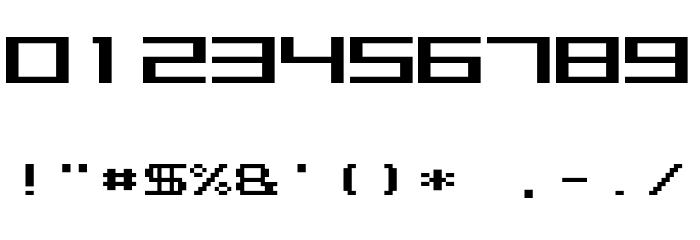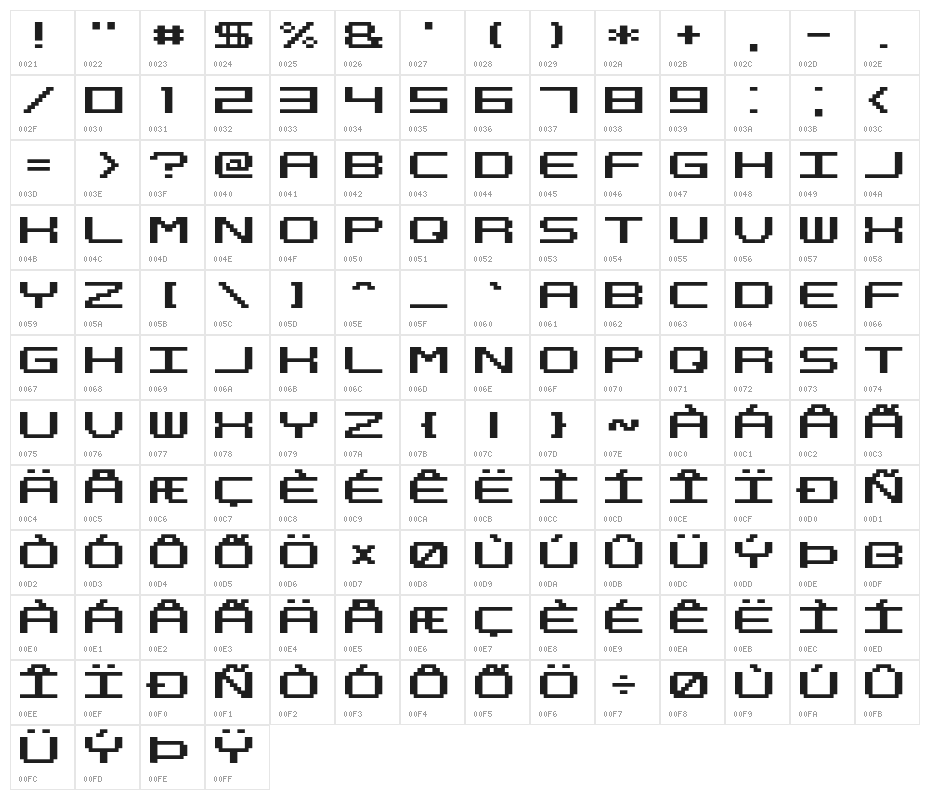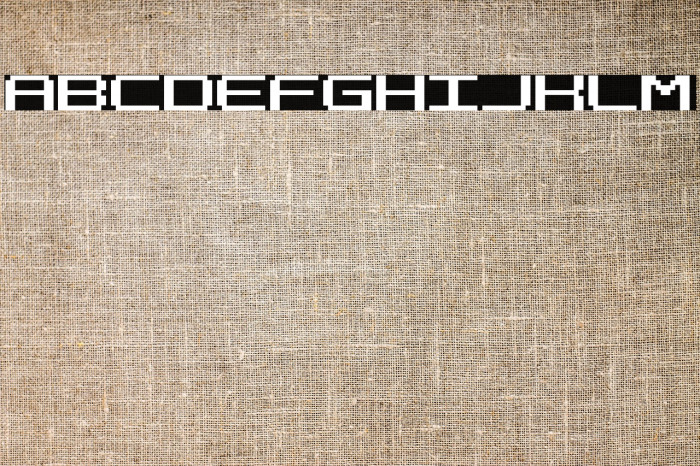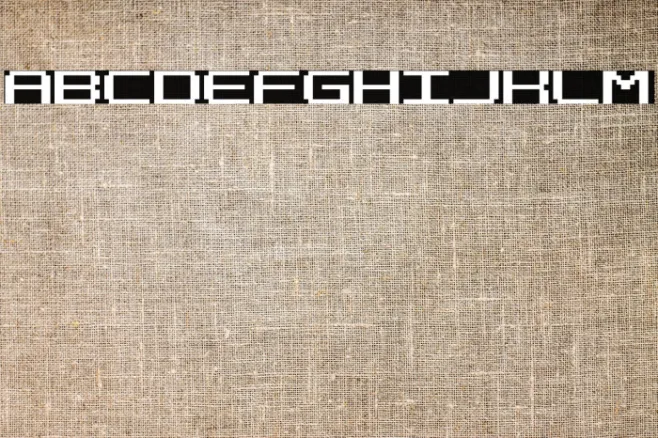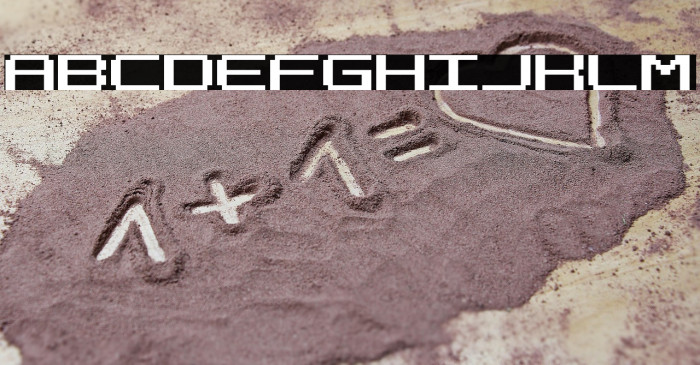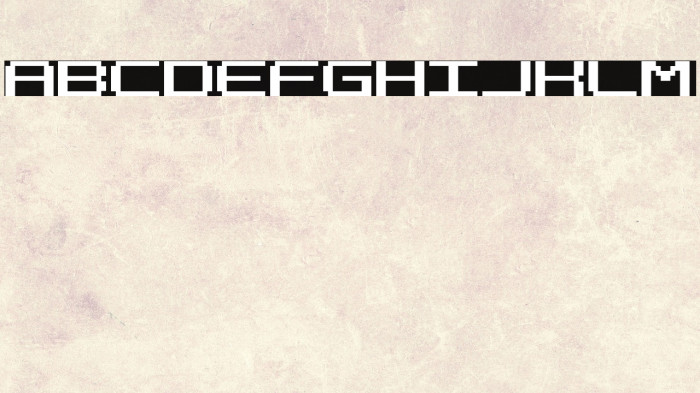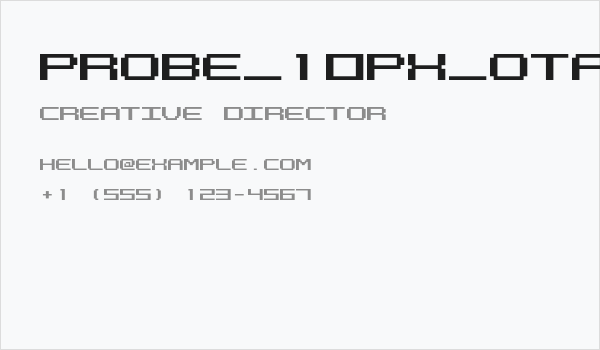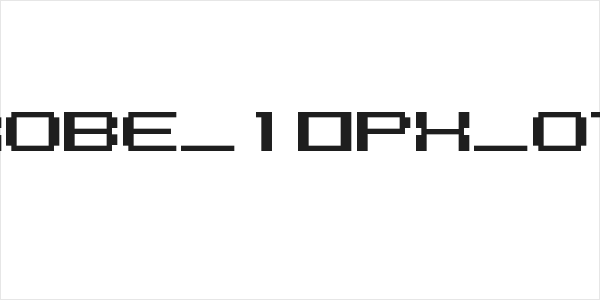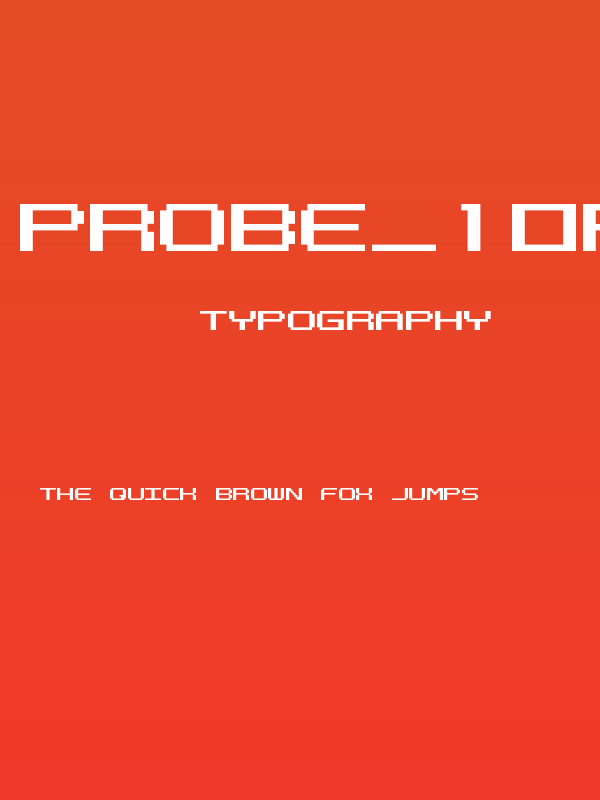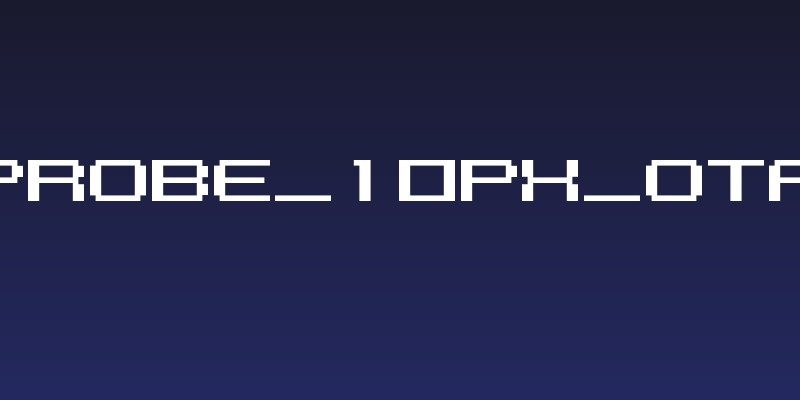
PROBE_10PX_OTF Font
PROBE_10PX_OTF Description
This font features a pixelated, blocky design reminiscent of early digital displays and retro video games. Each character is constructed with a grid-like precision, giving it a distinctly digital and technical appearance. The uppercase and lowercase letters maintain a uniform height, contributing to a monospaced feel, although the font itself is not strictly monospaced. The numerals and special characters follow the same pixelated style, ensuring consistency across all glyphs. This font's simplicity and clarity make it ideal for digital interfaces or projects that aim to evoke a sense of nostalgia for early computing aesthetics.
| Use Case | Headlines, Logos, Digital Interfaces |
| Proposed Projects | Ideal for retro video game designs, digital interfaces, tech-themed posters, and nostalgic branding. |